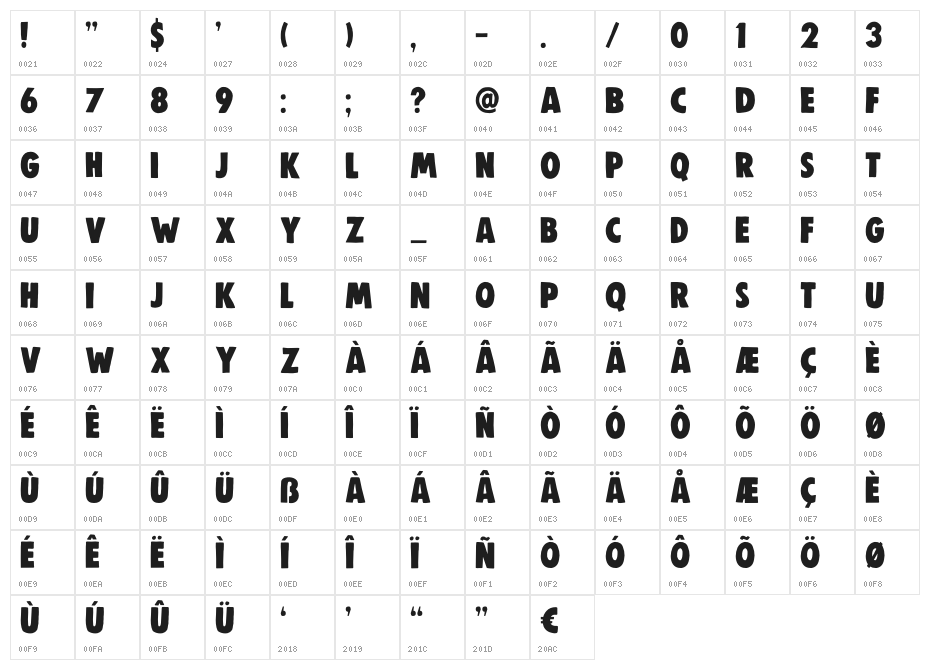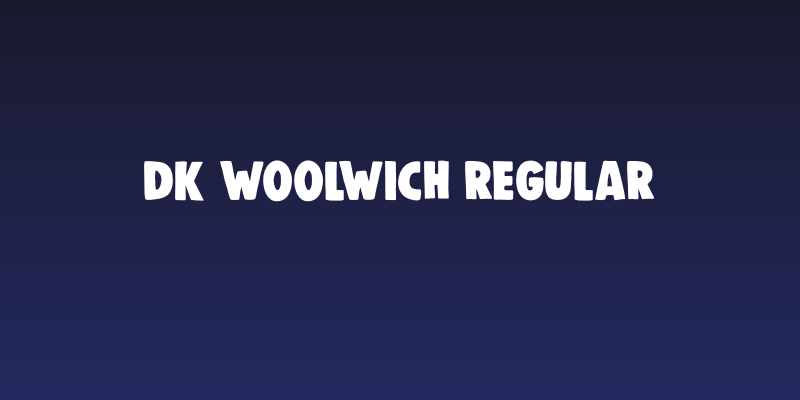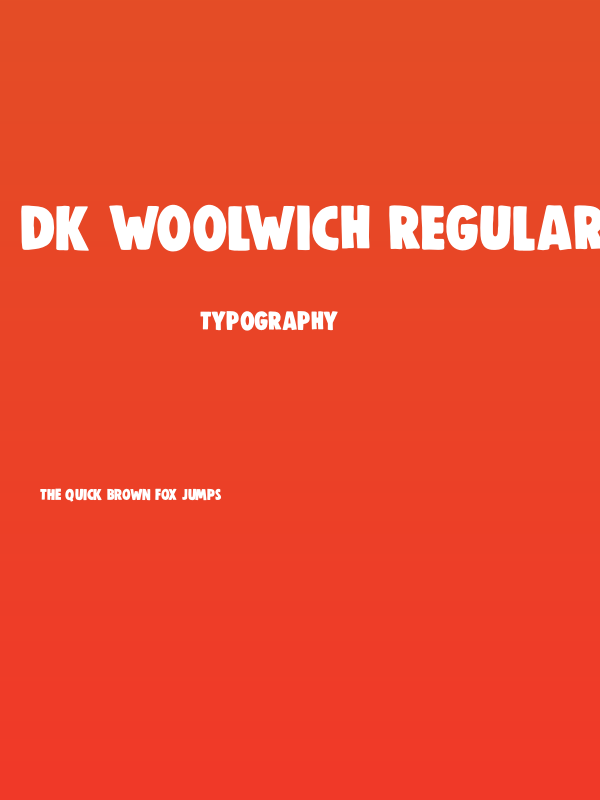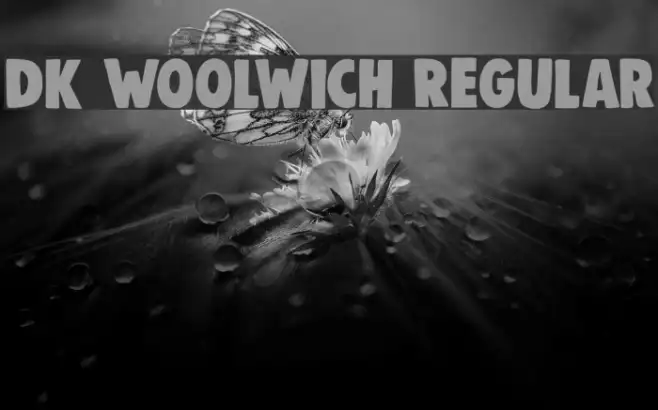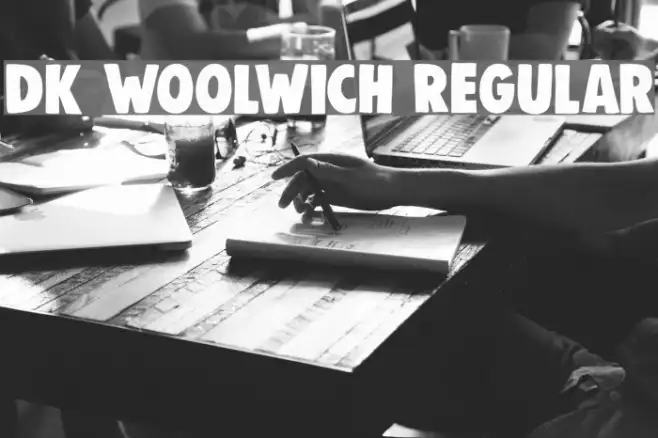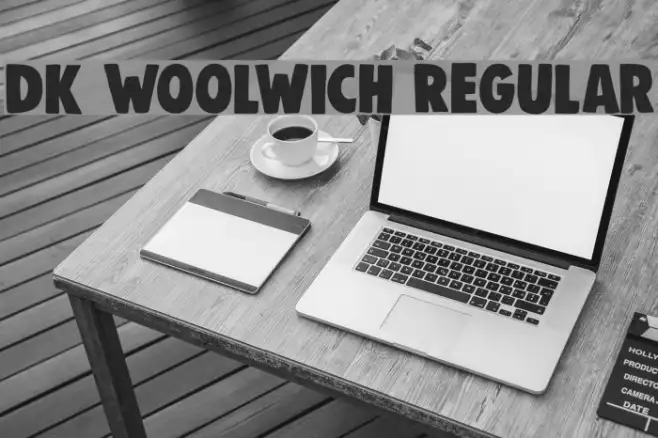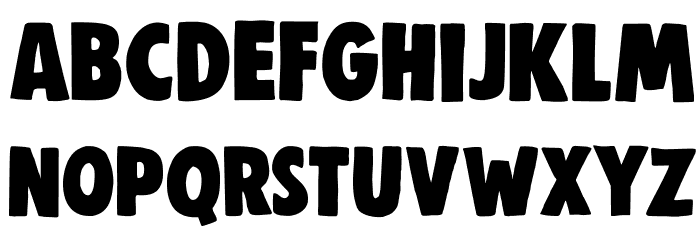
DK Woolwich Regular Font
DK Woolwich Regular Description
This font exhibits a bold and playful style, characterized by its thick, rounded letterforms that convey a sense of strength and approachability. The uppercase letters are uniform in height, contributing to a cohesive and balanced appearance. The numbers are equally bold, maintaining the font's overall robust aesthetic. Special characters are included, adding versatility for various design needs. The font's unique style is enhanced by decorative elements, making it suitable for eye-catching designs.
| Overall Style | Playful, Decorative |
| Proposed Projects | Ideal for children's book covers, playful branding, posters, and creative packaging. |